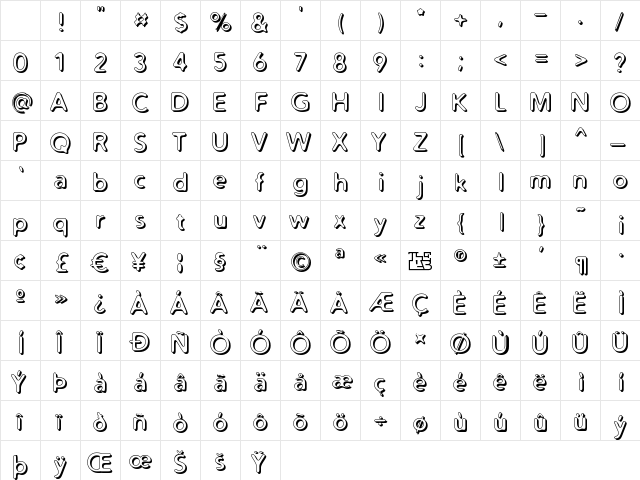
Complete Distro Bev Regular glyph index. Displaying only characters natively supported by Distro Bev Regular font.
Distro Bev is a composed and adaptable typeface that performs quietly and consistently across a wide range of design contexts.